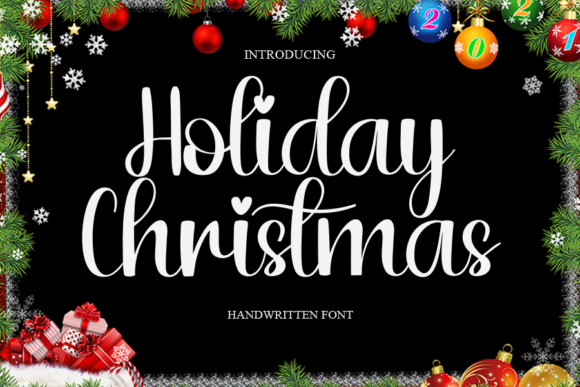
Indulge in the whimsical charm of Holiday Christmas Font, a masterfully crafted script font that will ignite your creativity and transport you to a realm of festive enchantment. As you embrace this font's graceful curves and elegant flourishes, your designs will bloom with a unique artistry that captivates and enthralls.
With Holiday Christmas Font, you'll have the power to transform ordinary words into captivating works of art. Its enchanting characters dance across the page like snowflakes on a winter's eve, evoking a sense of warmth and nostalgia that will leave your audience spellbound.
Step into a world where imagination reigns supreme and let Holiday Christmas Font guide you on a creative journey like no other. Its versatility knows no bounds, making it the perfect companion for a myriad of projects, from heartfelt greeting cards to enchanting invitations, from eye-catching social media posts to stunning website designs.
Whether you're a seasoned designer seeking to elevate your creations or a novice just starting to explore the world of typography, Holiday Christmas Font is your gateway to greatness. Its user-friendly nature makes it accessible to all, empowering you to unleash your inner artist and create designs that leave a lasting impression.
Don't settle for ordinary fonts that blend into the background. Embrace the extraordinary with Holiday Christmas Font and watch as your designs take center stage, captivating hearts and imaginations with timeless elegance.